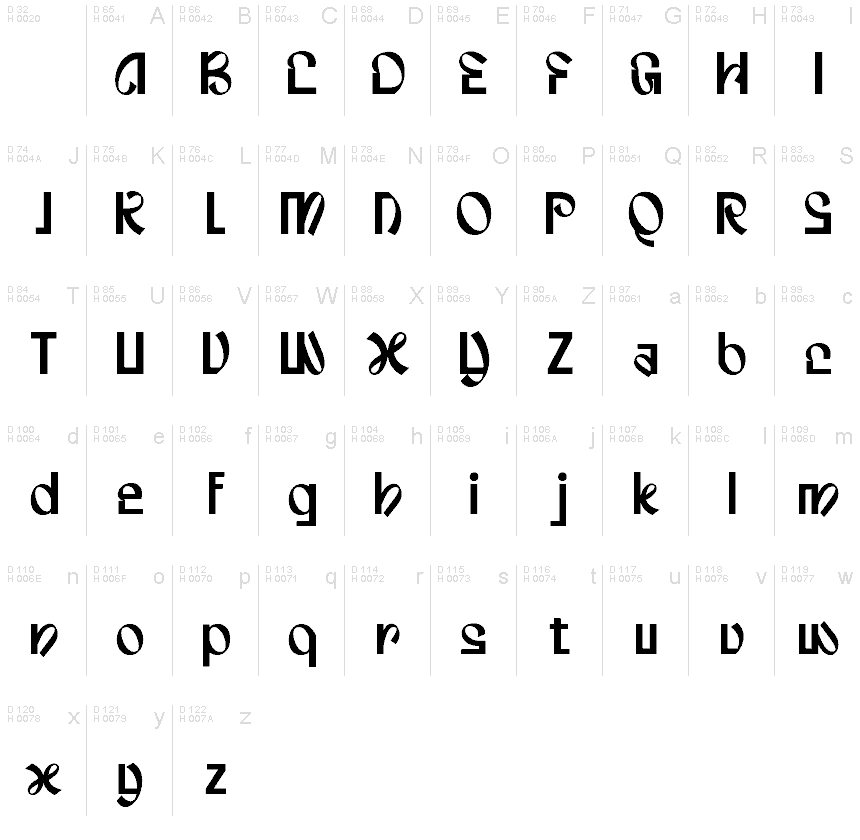
CS Halora Regular Demo
CS Halora font by Craft Supply Co. combines modernist aesthetics, geometric shapes, and Art Deco influences for a font that creates a strong visual identity. The robust free display font features stylized curves and a distinctive character to help you develop your next project the way you’ve always imagined it.
A splendid font across problems of all scales, it fits perfectly in logos, letterheads, book titles and covers, posters and flyers, magazines, art albums or photo books even in stamps or playing cards.